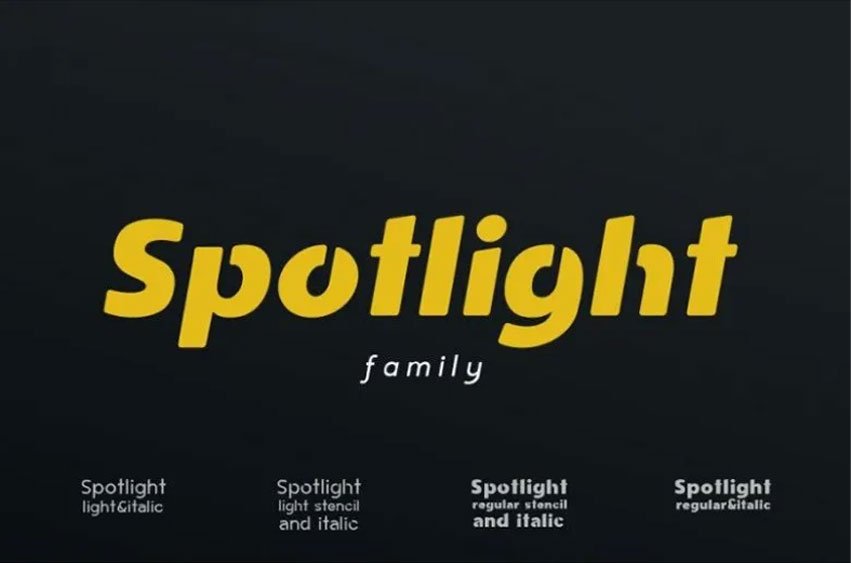
Spotlight Font is a new sans-serif family, it looks simple and dynamic. It’s can be useful as display with special ligatures. It’s designed and shared by Shaped Fonts. It’s a modern sans serif typeface and perfect for headlines, logos or even continuous text.
It has beautifully modulated letters and a balanced stroke width and you can choose between a regular look or true italics. Or go crazy with the stencil style, which will give your design a unique look. Try it for free or buy a commercial license which includes all 500 letters and a bonus style!